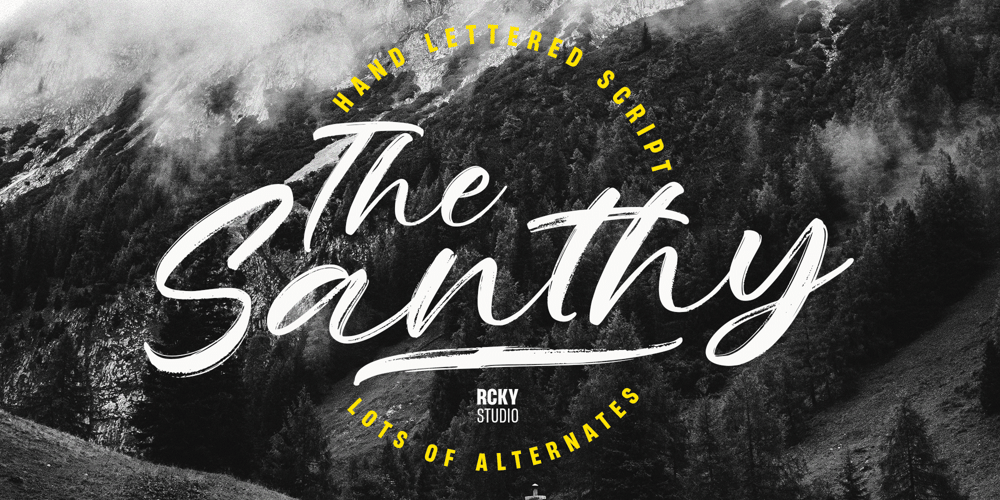
The Santhy
The Santhy font
The Santhy Font Family was designed by Rizki Agam Fonna and published by RCKY Studio. The Santhy contains 2 styles and family package options. The Santhy is a soft textured brush font with a little roughness on the surface, showing the unique characteristics of stunning hand-drawn art and has an underline. This font also has alternates and ligatures that make your design more attractive.Suitable for use in title designs such as clothing, invitations, title books, stationery designs, quotes, branding, logos, greeting cards, t-shirts, packaging designs, posters, and more.